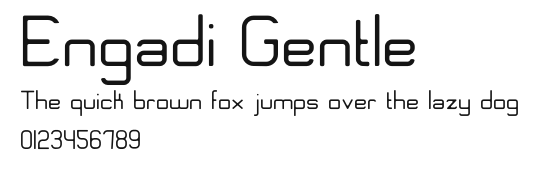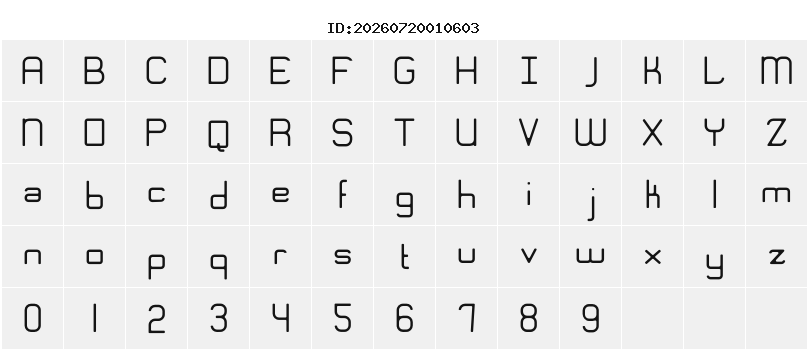
• Font Name: Engadi Gentle
• Designer: Ben Mahaffey
About Engadi Gentle.otf
Engadi Gentle.otf is a modern, elegant sans-serif font designed for ultimate readability and visual harmony. Perfect for branding, headlines, web design, and print materials.